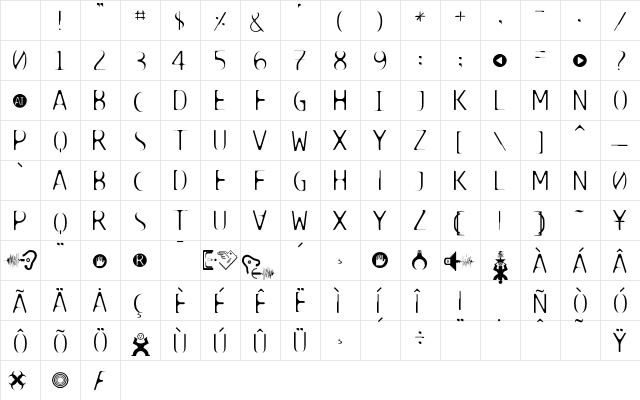
TECHNOIRE Suture Free Font
TECHNOIRE Suture
Style: Suture
Design Context for TECHNOIRE
TECHNOIRE has a distinctly futuristic character, with geometric precision and clean angles that feel at home in technology, gaming, and sci-fi contexts.